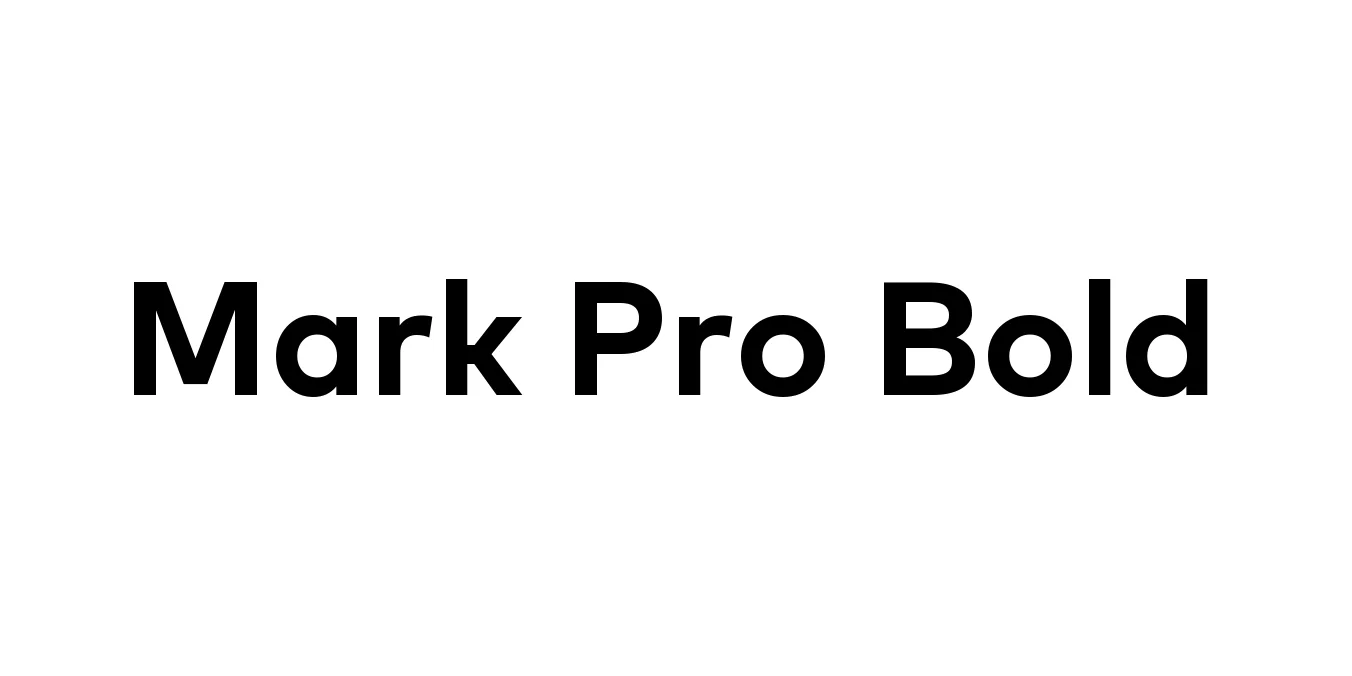
Mark Pro Bold
Designed by Hannes von Döhren and Christoph Koeberlin
| Font Name | Mark Pro |
| Category | Geometric Sans Serif |
| Designer | Hannes von Döhren and Christoph Koeberlin |
| Similar Fonts | Futura, Gotham, Montserrat, Avenir, ITC Avant Garde Gothic |
Mark Pro Bold is a contemporary geometric sans-serif typeface released through the FontFont foundry. Designed by Hannes von Döhren and Christoph Koeberlin, this font was inspired by the classic geometric forms of the early 20th century, most notably the legendary Futura. However, Mark Pro distinguishes itself by incorporating modern proportions and a larger x-height, which significantly improves legibility across both digital and print mediums.
The Bold weight of the Mark Pro family is particularly effective for high-impact communication. It maintains a clean, architectural aesthetic while providing the visual weight necessary for headers and branding. Its precision and balance make it a favorite among graphic designers for projects ranging from corporate identities to sophisticated editorial layouts, ensuring a professional and timeless look in any application.
Mark Pro Bold Best Uses
Perfect for creating strong, recognizable corporate identities and logos.
Ideal for bold headers and pull quotes in magazines or newspapers.
Excellent for call-to-action buttons and prominent hero section text.
Great for posters, brochures, and promotional materials that require clarity.